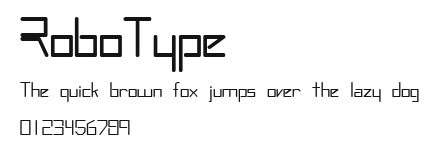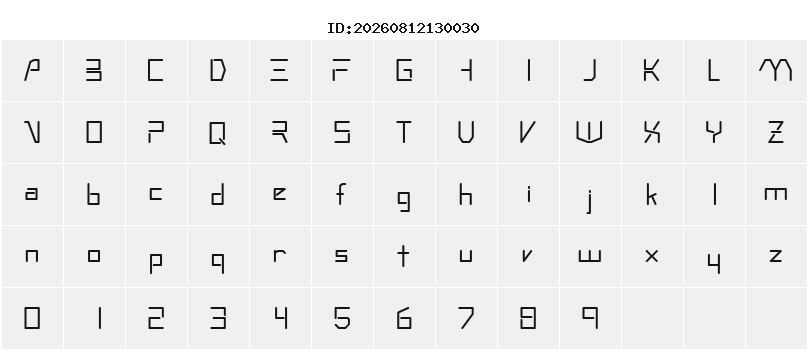
• Font Name: RoboType
• Font ID: Weatherly Systems, Inc. RoboType Regular
• Full Font Name: RoboType Regular
• Version: W.S.I. Int'l v1.1 for GSP: 6/20/95
• PostScript Name: RoboType
• Character Count: 227
About RoboType.ttf
RoboType.ttf is a modern, elegant sans-serif font designed for ultimate readability and visual harmony. Perfect for branding, headlines, web design, and print materials.